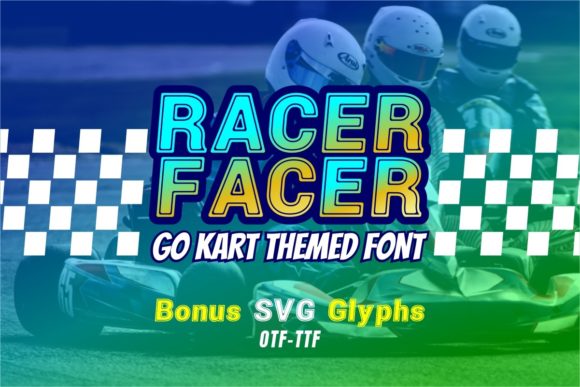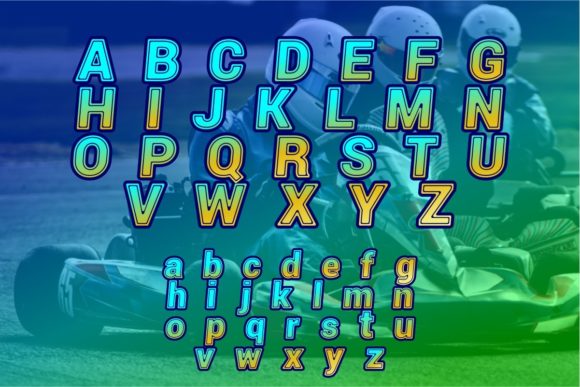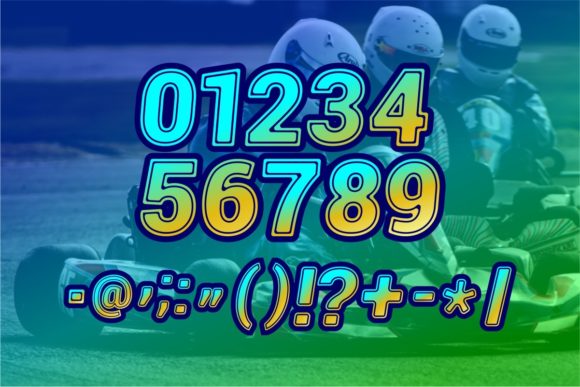
Racer Facer Font: A Bold Display Font for Racing Logos & Poster Design
About the Racer Facer Font
Discover the charm of Racer Facer Font. This font is a perfect blend of modern aesthetics and classic appeal. If you are looking for a racing-themed font, look no further. This display font would be perfect for any project that needs a racecar or racing theme. It is easy to use and would work well in games, posters, logos, or any design that needs to convey speed.
Race to the finish line with this decorative racing-themed font!
Racer Facer’s bold, energetic style is ideal for headlines, logos, and short impactful phrases in posters or branding materials for automotive, sports, or gaming projects. Its strong personality makes it less suitable for body text or UI elements where readability is paramount. Avoid using it for lengthy paragraphs.
Pairing Racer Facer with a clean sans-serif like Open Sans for body copy provides excellent contrast and readability. For a more playful feel, a rounded geometric sans-serif could be used. A subtle serif like Merriweather could add a touch of sophistication to a logo design using Racer Facer as a headline.
The font’s overall personality is high-octane and dynamic, best suited to projects conveying speed, power, and excitement.